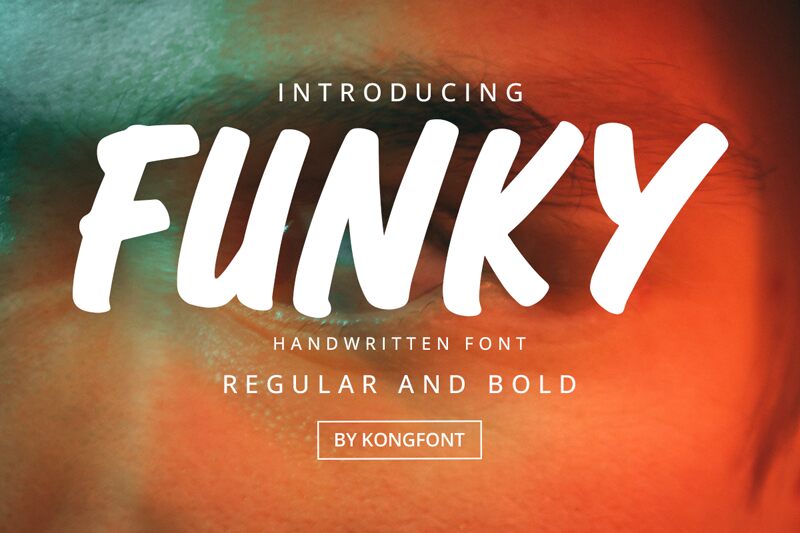
The Funky font by Kong Font is a captivating display typeface that exudes a spirited, whimsical charm. Its bold, comic-inspired strokes and script-like flourishes create a delightfully expressive aesthetic, evoking a sense of playfulness and energy. The font's distinctive character shapes and dynamic lines make it a standout choice for grabbing attention and adding a touch of playfulness to various design projects.
This versatile font shines in applications where a bold, eye-catching typographic treatment is desired, such as in branding, event materials, packaging, and advertising campaigns. Its vibrant personality makes it well-suited for projects targeting a youthful, fun-loving audience, from posters and social media graphics to clothing and product labels. The Funky font by Kong Font is a solid choice for designers seeking to inject a dose of playfulness and individuality into their visual compositions.